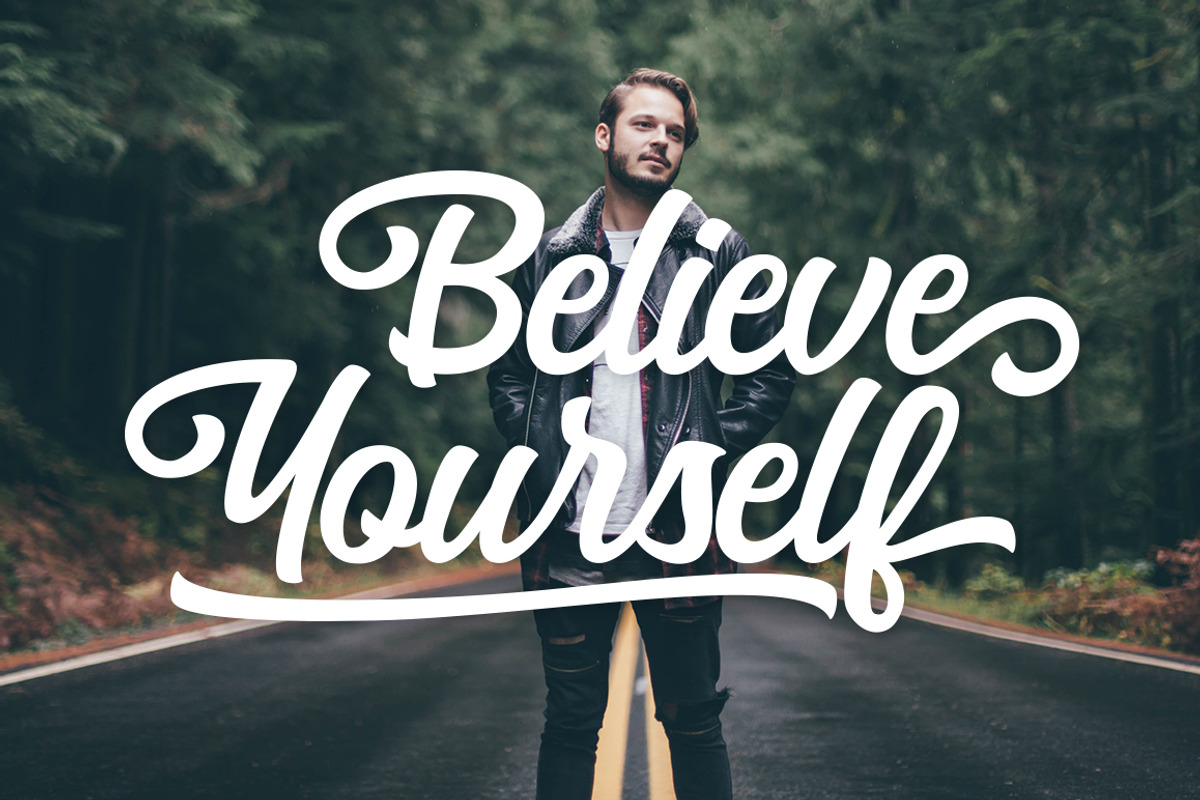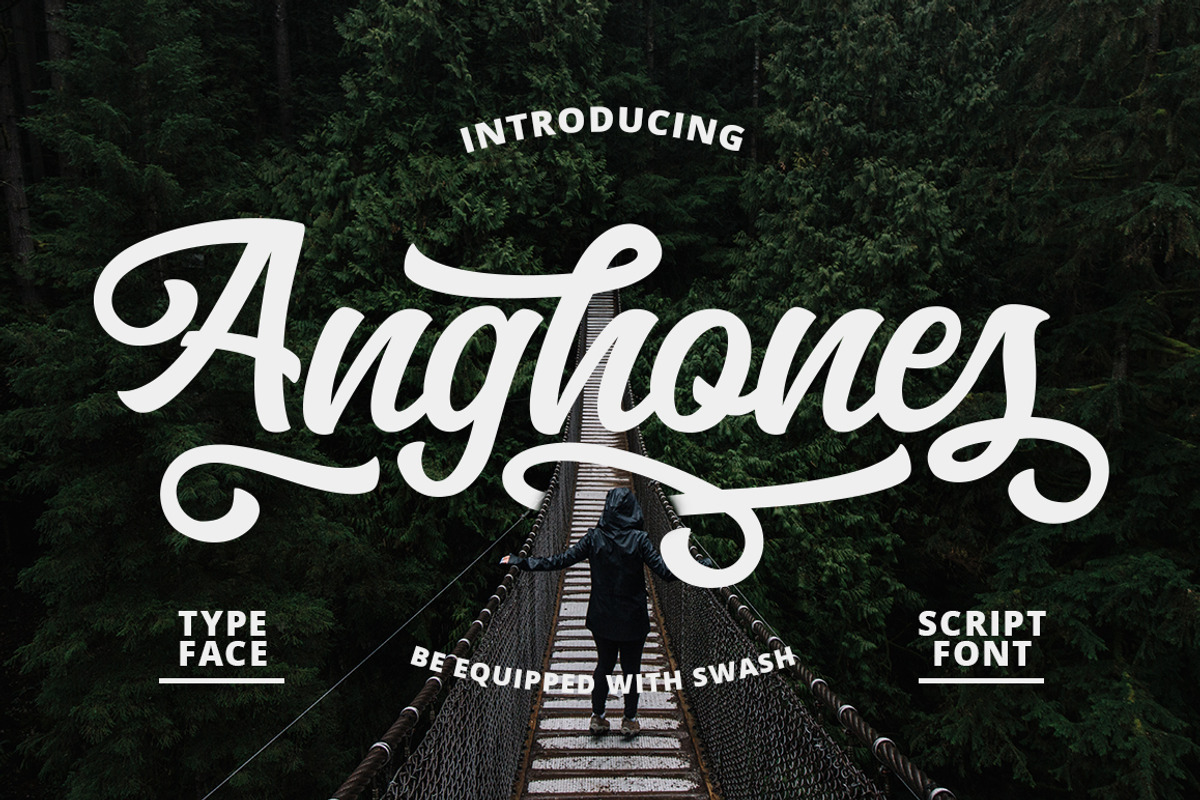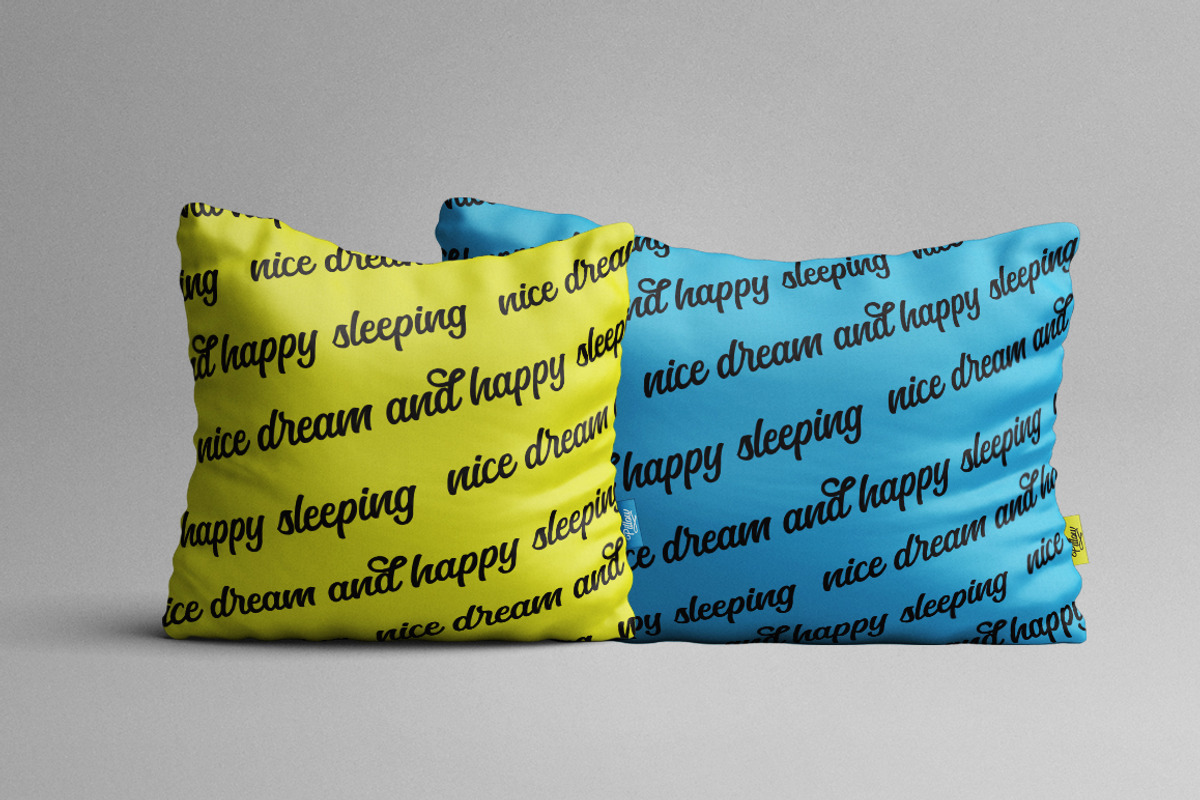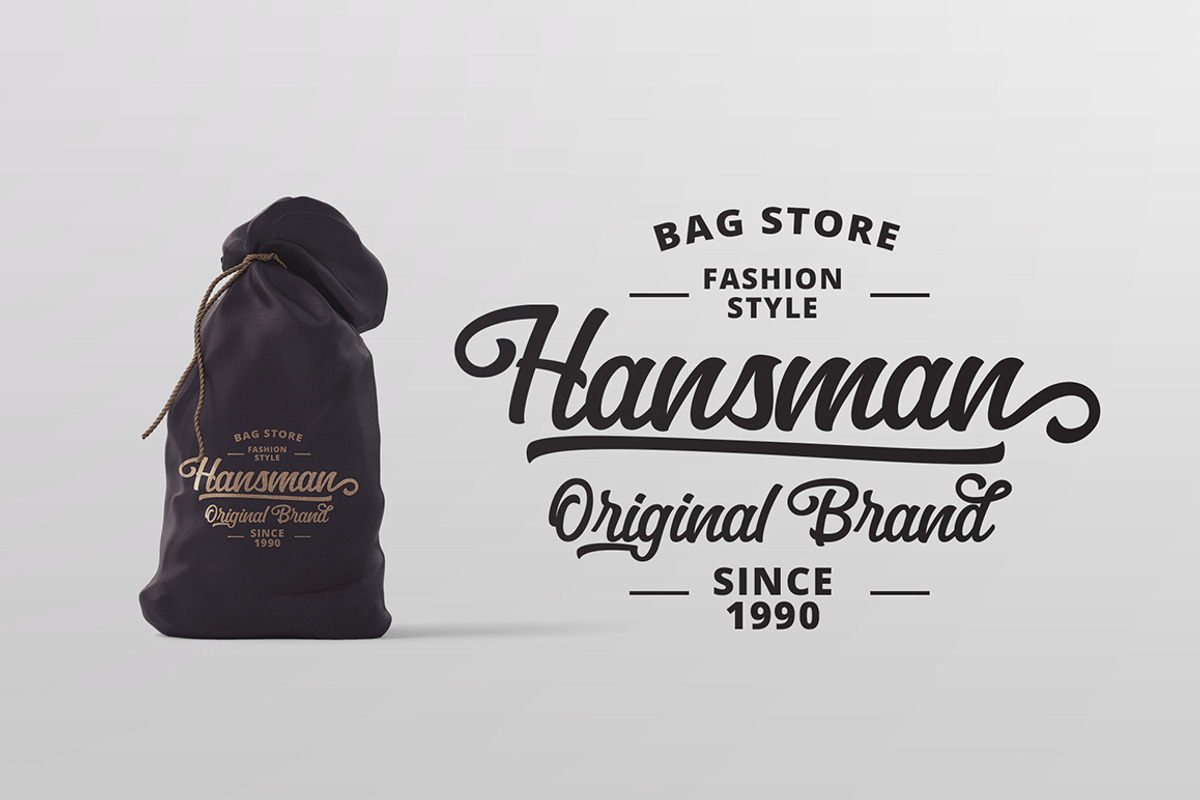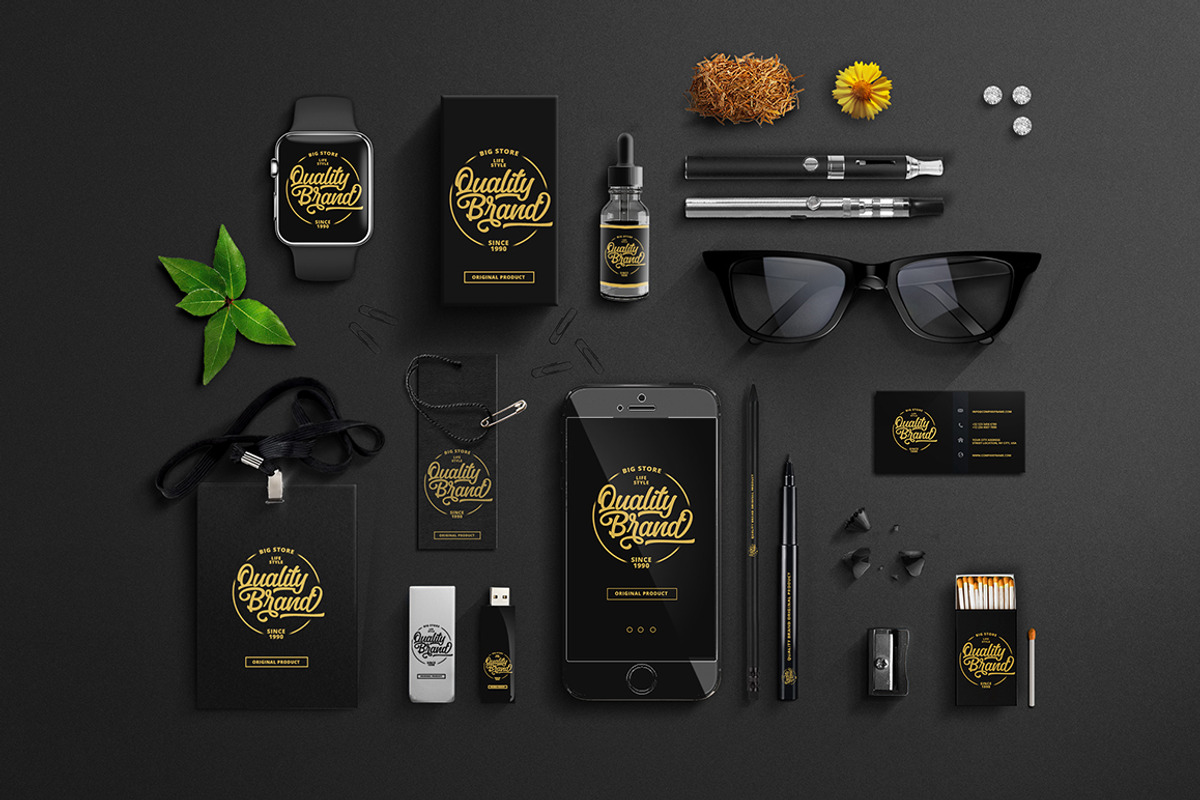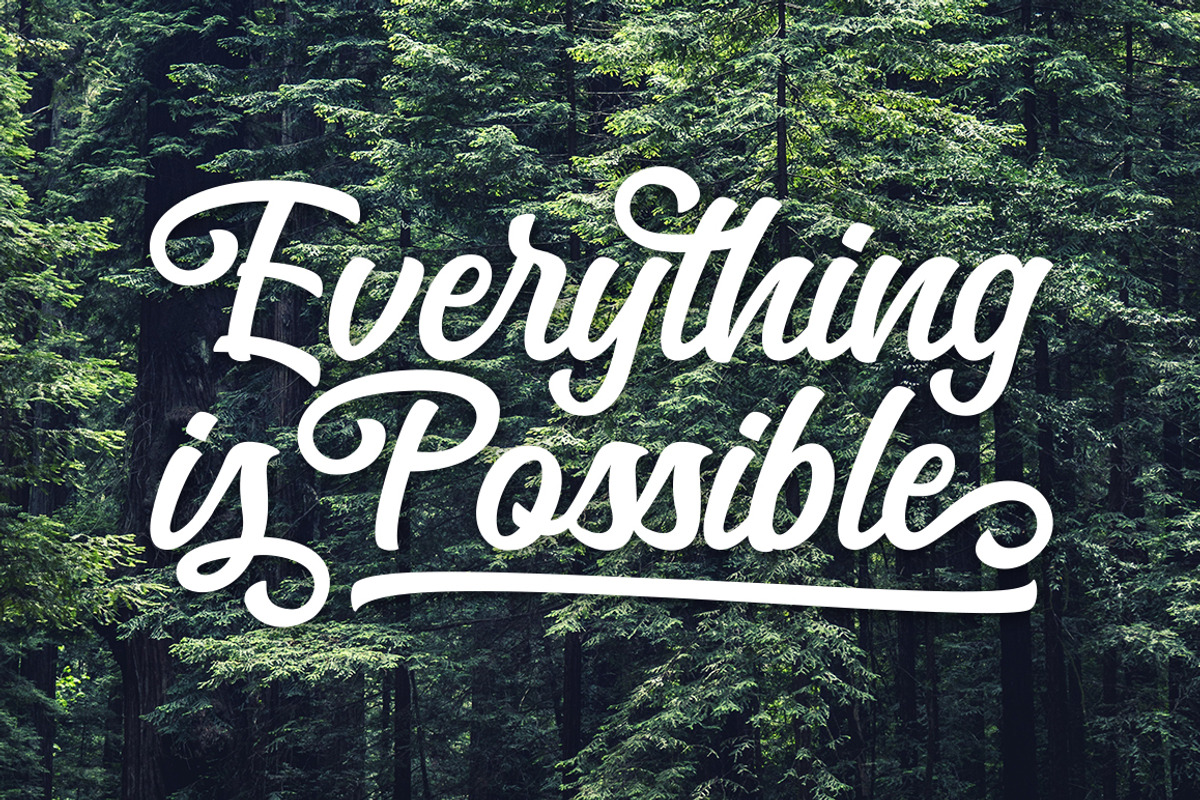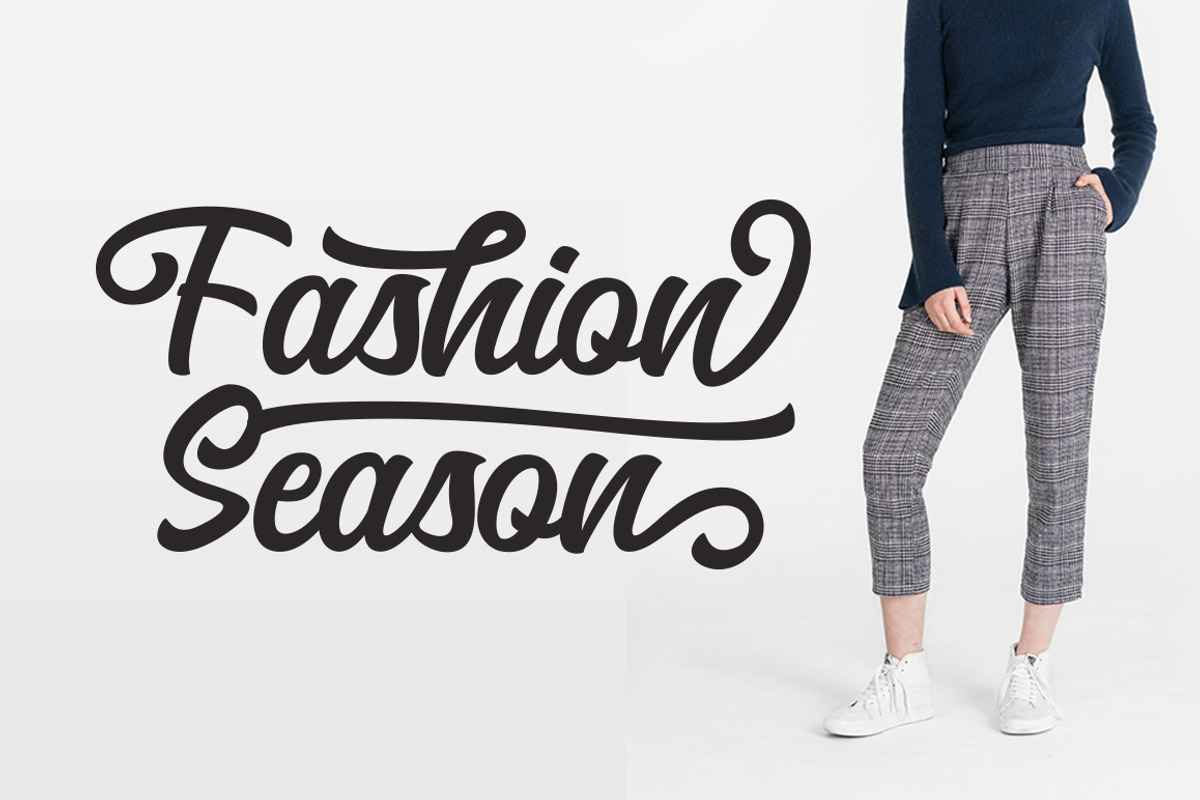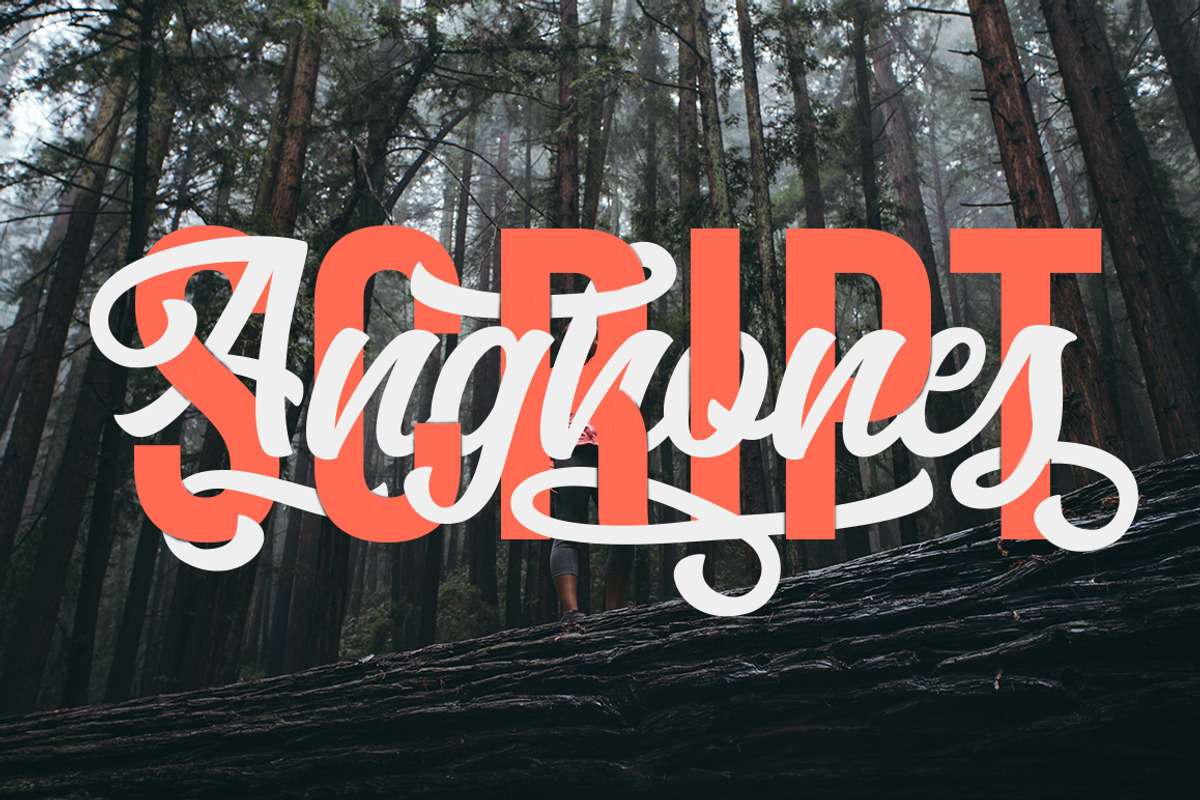
Anghones - Script Font
Anghones Script is a simple typography and easy to read so comfortable to wear. You can use them as logos, badges, packaging, headlines, posters, t-shirts / clothing, greeting cards, business cards, and wedding invitations and more. The flowing character is ideal for creating interesting messages to your taste.
mix and match a group of alternate characters to fit your project. It will be more interesting if you add swash.
Alternate characters in this font are divided into several OpenType features such as Stylistic Alternate, Ligature and Ligature Alternates.
- mix and match a group of alternate characters to fit your project.
- Alternate characters in this font are divided into several OpenType features such as Stylistic Alternate, Ligature and Ligature Alternates.
Anghones - Script Font by Maculinc Type fits naturally into Branding, posters, packaging, typography.